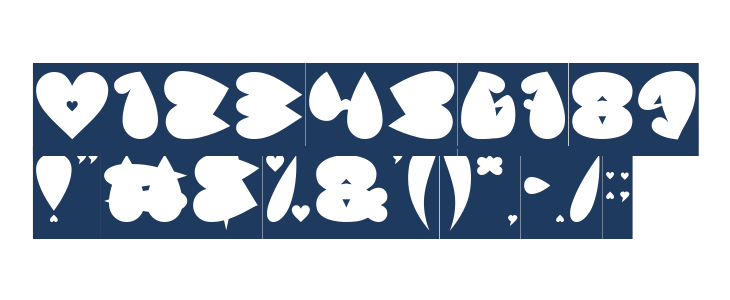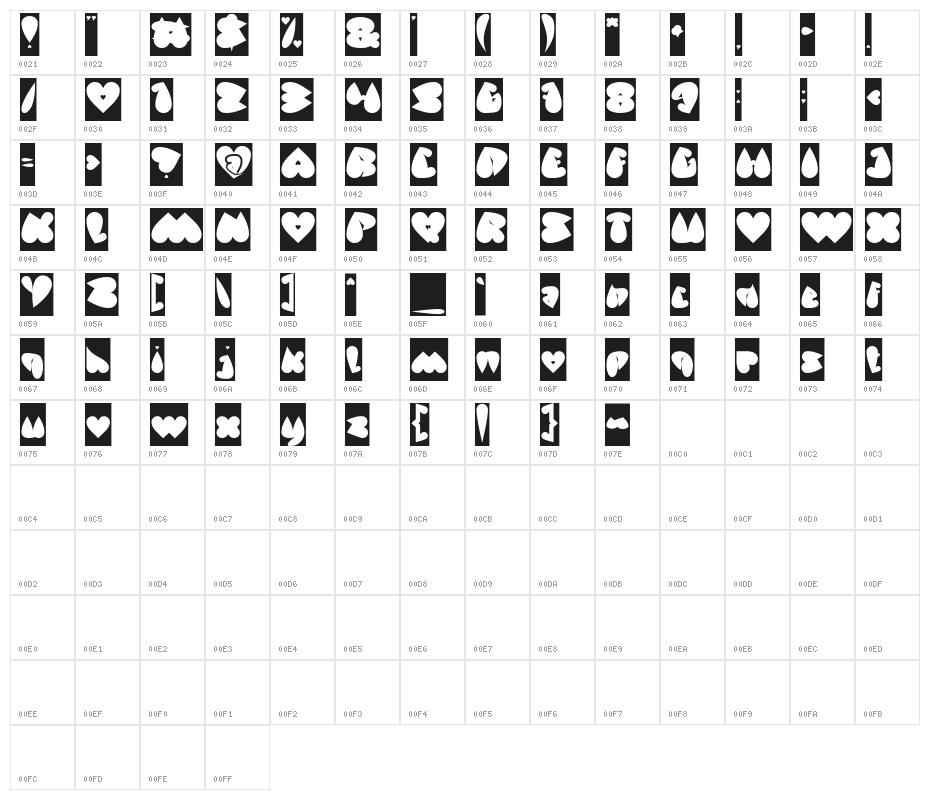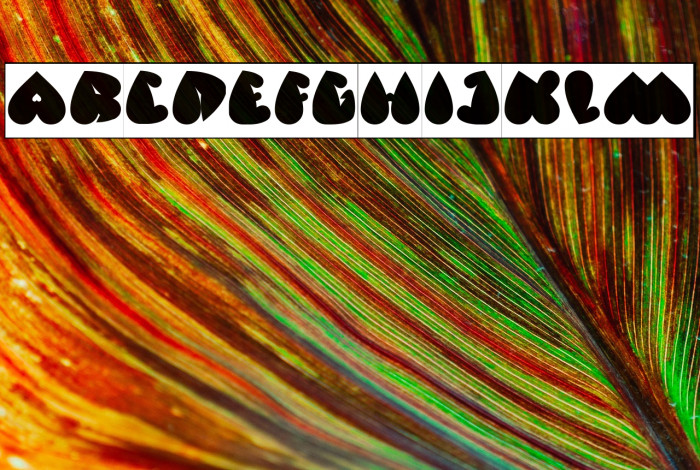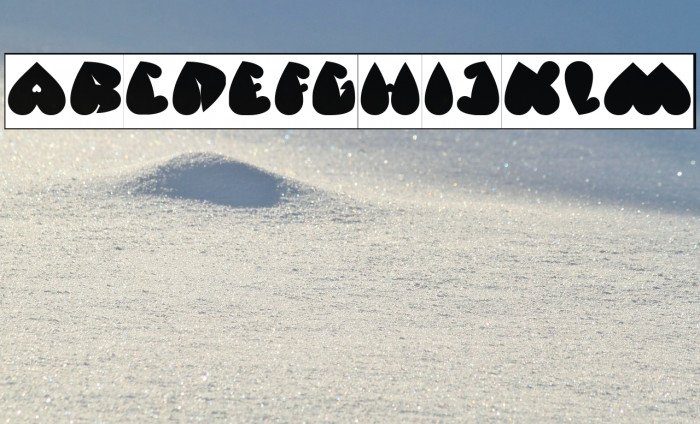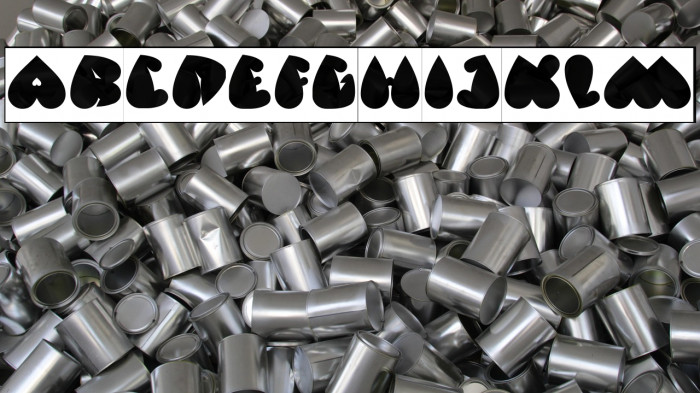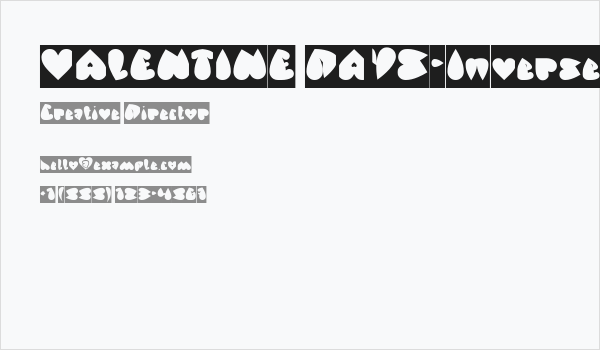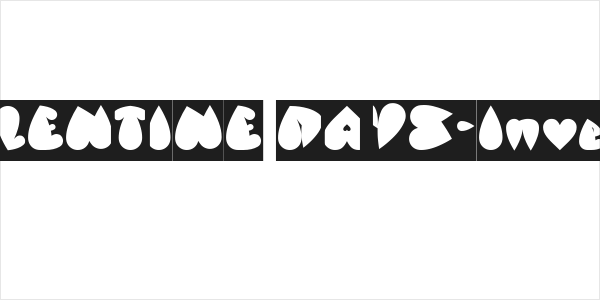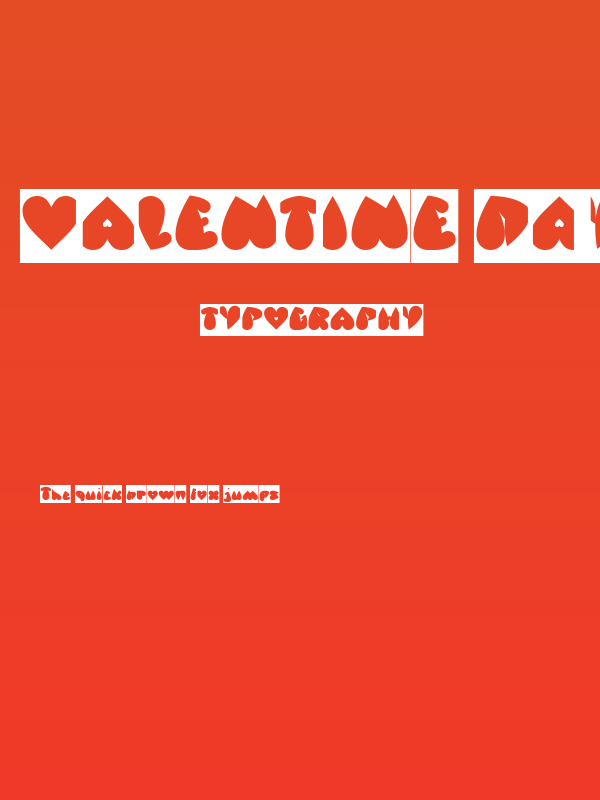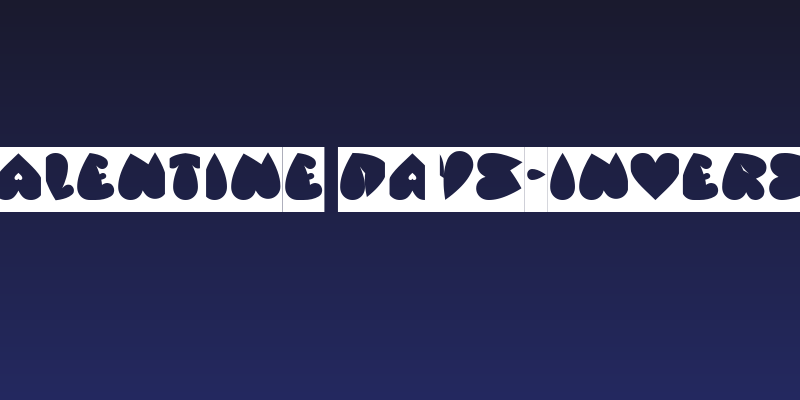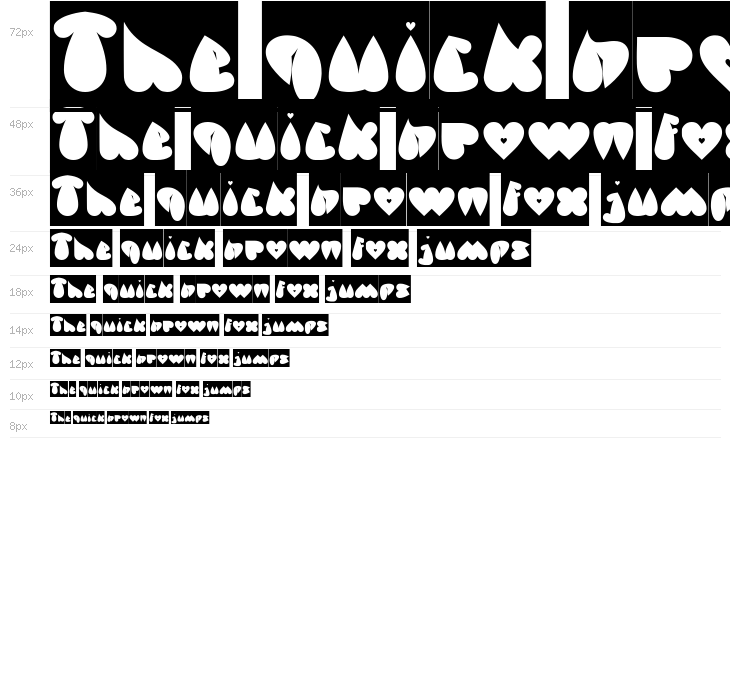
VALENTINE DAYS-Inverse Font
VALENTINE DAYS-Inverse Description
This playful and whimsical font features bold, heart-shaped elements integrated into each character, creating a romantic and fun aesthetic. The letters are rounded and full-bodied, with a consistent thickness that gives a sense of uniformity and balance. The heart motifs are cleverly incorporated into both uppercase and lowercase letters, as well as numbers and special characters, enhancing the font's thematic cohesion. The overall design is eye-catching and ideal for conveying love and affection, making it perfect for Valentine's Day projects or any romantic occasion.
| Use Case | Headlines, Logos, Invitations |
| Proposed Projects | Perfect for Valentine's Day cards, wedding invitations, love-themed posters, and playful branding. |